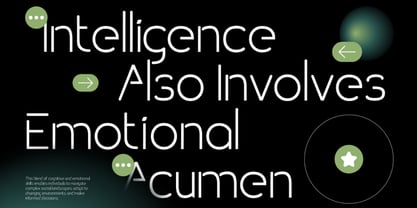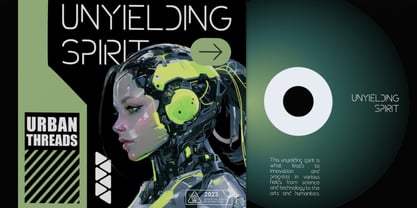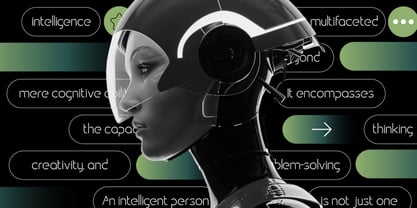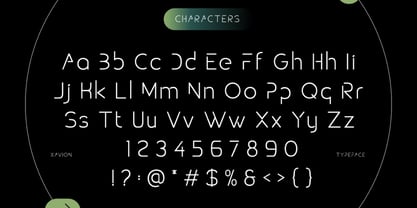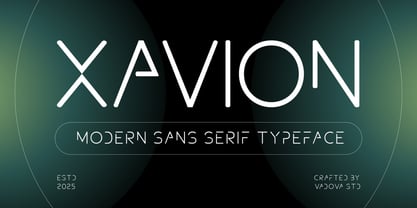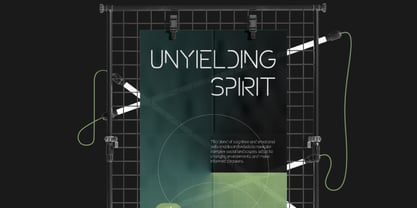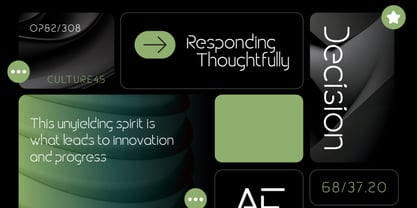
Xavion
Xavion is a sleek and innovative modern sans serif typeface crafted to bridge futuristic aesthetics with functional clarity. Its clean lines, circular geometry, and subtle sci-fi nuances make it a versatile font suitable for high-tech branding, digital UI/UX interfaces, and forward-thinking visual identities. With a full character set including uppercase, lowercase, numbers, punctuation, and multilingual support, Xavion offers both creativity and practicality. Its distinct letterforms are ideal for bold headlines, clean layouts, or minimalist typographic compositions that require a touch of future-inspired design. Whether used in product design, app interfaces, posters, or logotypes, Xavion brings a refined and modern edge to every creative project.